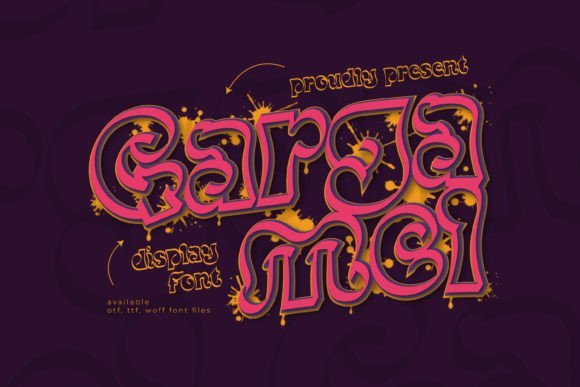
Meet Your New Best Friend: Gargamel Font
Have you ever stared at a blank design canvas, searching for that spark of creativity that will bring your project to life? It’s a moment we’ve all been there – the blank page staring back, the cursor blinking, and the pressure to deliver something amazing. But what if I told you there’s a font that can help you break through that creative block and unleash your inner designer?
Enter Gargamel Font, a bold and playful display font that’s guaranteed to turn heads. With its quirky, unconventional shapes and personality-packed design, Gargamel Font is the perfect companion for designers looking to add a touch of fun and originality to their work. From posters and packaging to social media graphics and branding, this font is a game-changer – and we’re about to dive into why.
Gargamel Font Key Features
- Font Family: Gargamel Font is a sans-serif font family designed to evoke a sense of mystery and magic. It consists of multiple font weights and styles.
- Unique Characteristics: The font’s unique design elements, including its distinctive letterforms and subtle texture, add a touch of whimsy and fantasy to any design project.
Gargamel Font Review
I’ve had the chance to work with the Gargamel Font, and here’s my honest take.
- The Gargamel Font has a unique and quirky personality that’s perfect for adding some whimsy to your designs.
- The bold and playful style works particularly well for titles, headings, and other emphasis-based typography.
- The font’s texture and imperfections give it a hand-drawn feel that’s both charming and engaging.
- The Gargamel Font may not be the best choice for body text due to its busy and distracting nature.
- The font’s irregularities may make it difficult to read at smaller sizes or in low-contrast environments.
- The lack of comprehensive language support may limit its use for multilingual designs.
The Gargamel Font is a bold and eye-catching choice that’s sure to make a statement in your designs. While it may not be suitable for every project, it’s perfect for adding some personality and flair to your work.
Getting the Most Out of Gargamel Font
Some tips for getting the most out of the Gargamel font include:
– Using it for titles or headings to add a touch of whimsy.
– Pairing it with other fonts to create a unique and eye-catching design.
– Experimenting with different font sizes and styles to achieve the desired effect.
The Gargamel font is commonly used for:
– Children’s book illustrations and design.
– Whimsical and fantastical branding and marketing materials.
– Creative and playful presentations and documents.